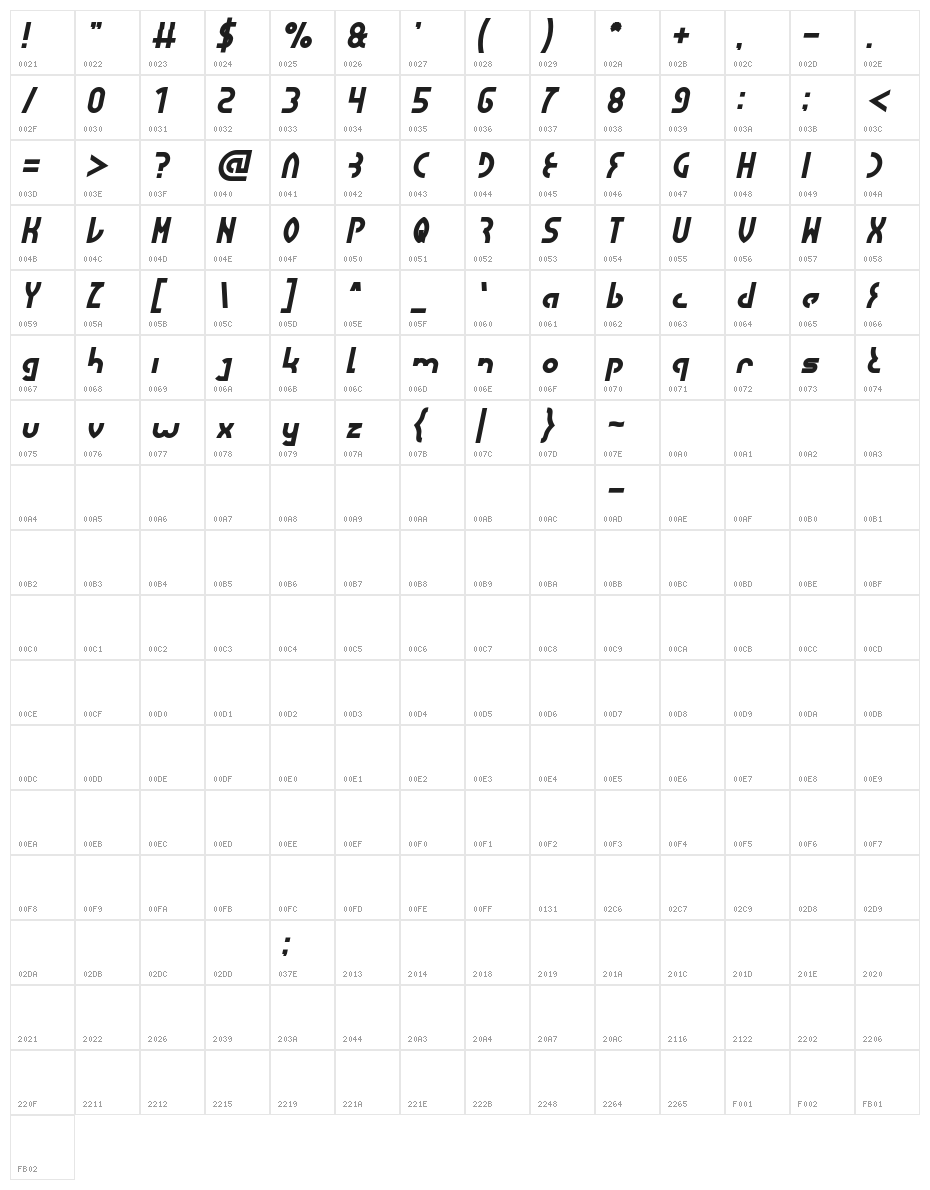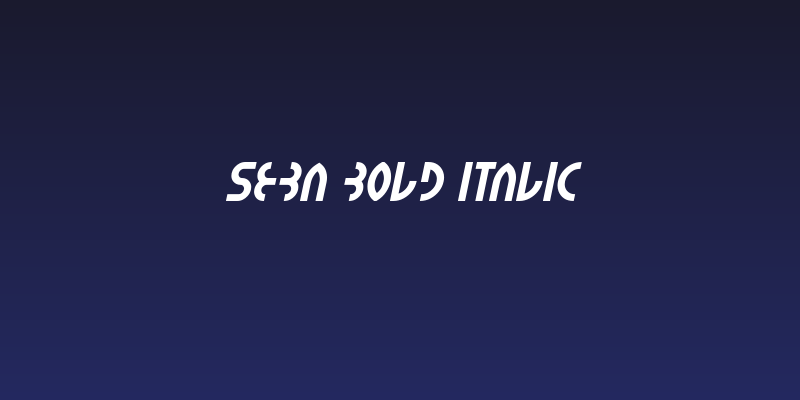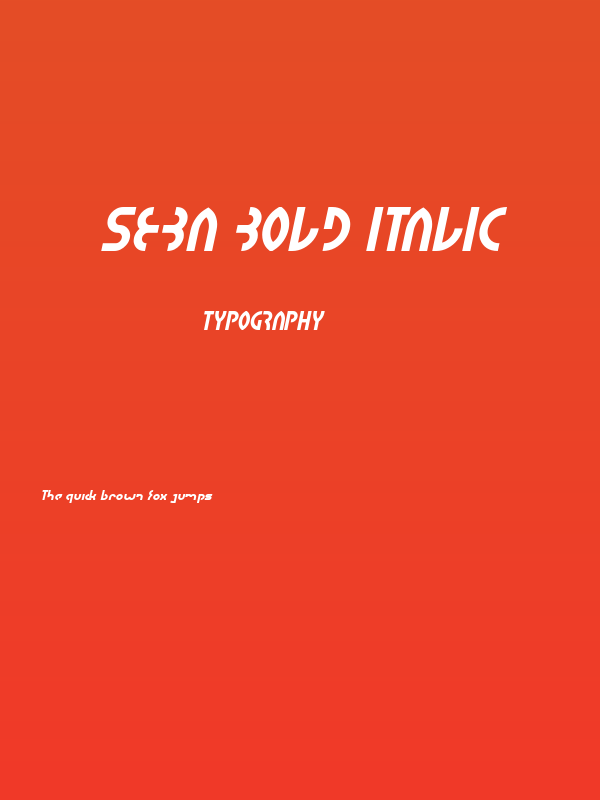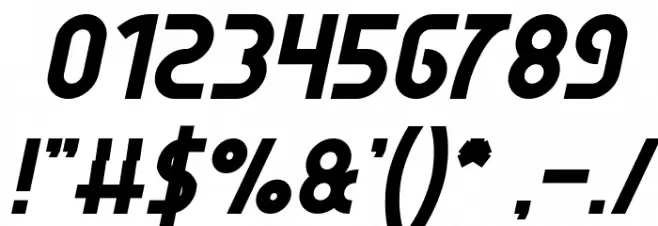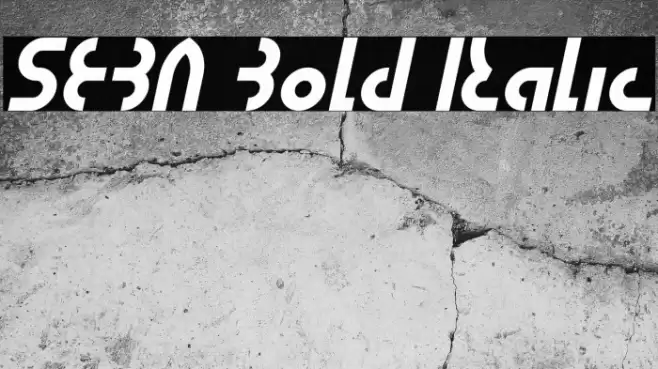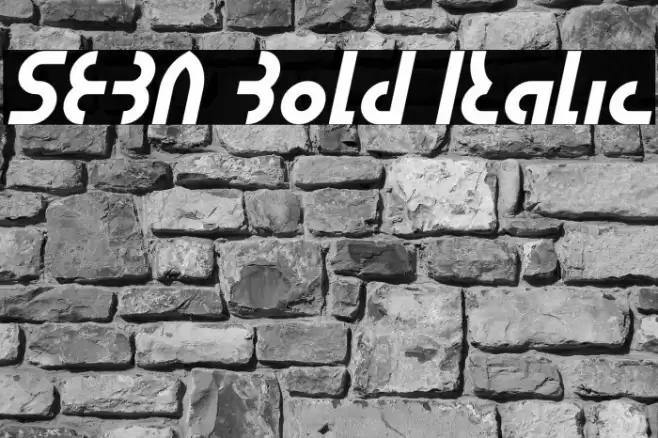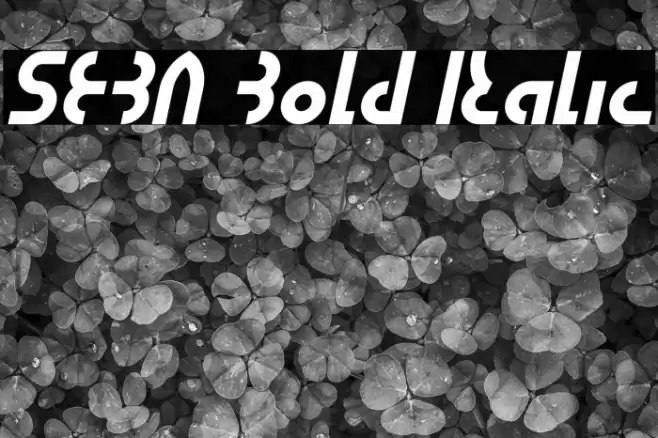
SEBA Bold Italic Font
This font features a bold and italicized style with a distinctive, modern flair. The characters are designed with a forward-leaning slant, giving them a dynamic and energetic appearance. The strokes are thick and consistent, providing a strong visual impact. The uppercase letters have a unique geometric design, while the lowercase letters maintain a cohesive look with slightly rounded edges. The numbers and special characters are crafted to match the boldness and style of the alphabet, ensuring uniformity across all glyphs. This font is ideal for making a statement with its eye-catching and assertive design.
| Proposed Projects | Ideal for branding, advertising, posters, and headlines where a strong, impactful presence is needed. |